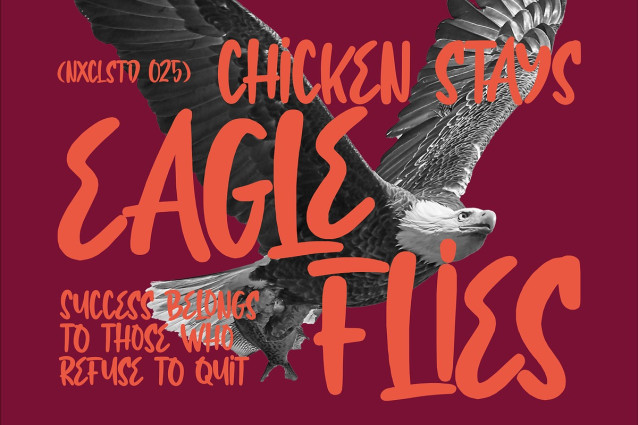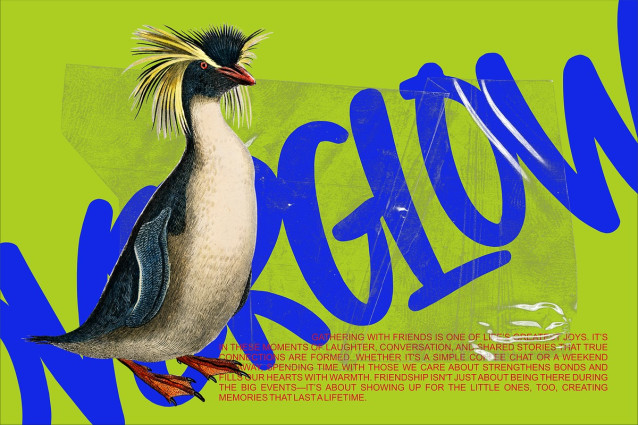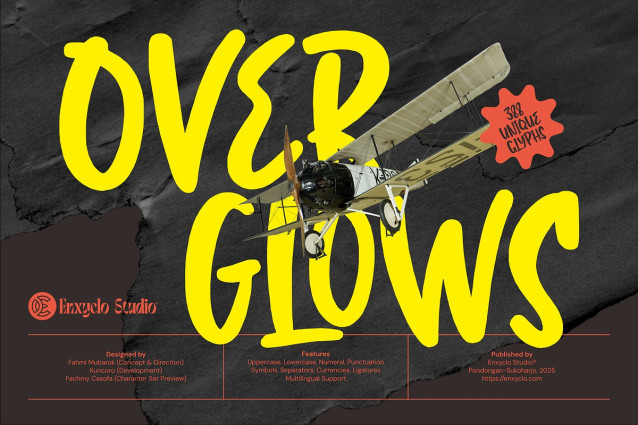
Overglows Font
Overglows Font, a lively and spirited handwritten font that adds a burst of personality to any project. Designed by Enxyclo Studio, Overglows features bold, dynamic strokes with a natural, free-flowing style perfect for capturing attention and conveying energy and creativity in your visual content.